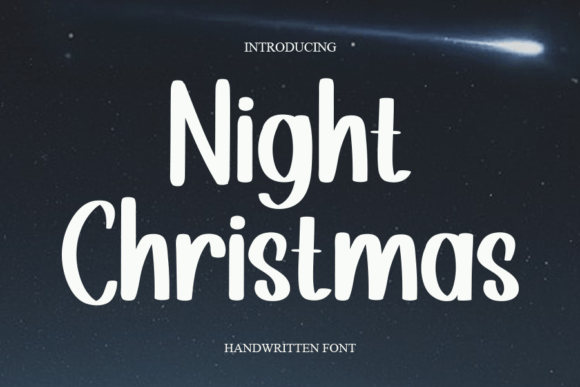
Embrace the charm and elegance of Night Christmas, a captivating script font that will bring a touch of warmth and personality to your designs. This enchanting font, created by the talented adinastudio, is perfect for crafting heartfelt invitations, adding a personal touch to greeting cards, or designing captivating social media posts. Its graceful strokes and playful characters will leave a lasting impression on your audience.
Indulge in the versatility of Night Christmas, a font that effortlessly adapts to a wide range of creative projects. Whether you're designing a wedding invitation, creating a heartwarming poster, or adding a touch of whimsy to your branding, this font is sure to elevate your designs with its timeless beauty. Its charming curves and delicate details will captivate your audience, leaving them enchanted by your creations.
Unlock the power of expression with Night Christmas, a font that will amplify your message with its undeniable charm. Its handwritten style exudes a sense of authenticity and warmth, inviting your audience to connect with your content on a deeper level. Whether you're crafting a heartfelt letter, designing a captivating flyer, or creating an engaging presentation, this font will ensure that your words resonate with your audience.
Experience the magic of Night Christmas, a font that will transform your designs into captivating works of art. Its enchanting characters will dance across your creations, adding a touch of enchantment and wonder. Let your imagination soar as you explore the endless possibilities that await you with this extraordinary font. Embrace the beauty of Night Christmas and embark on a creative journey that will leave your audience spellbound.